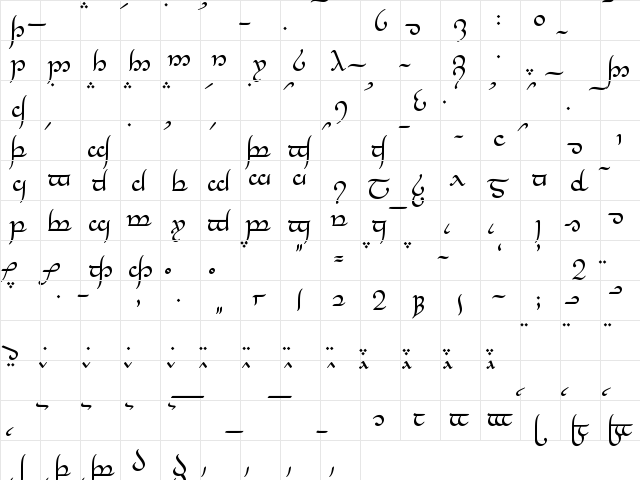
Tengwar Annatar Regular
| Designer | Johan Winge |
Tengwar Annatar offers clean, dependable letterforms without strong stylistic allegiance, making it a practical choice for designers who need flexibility.